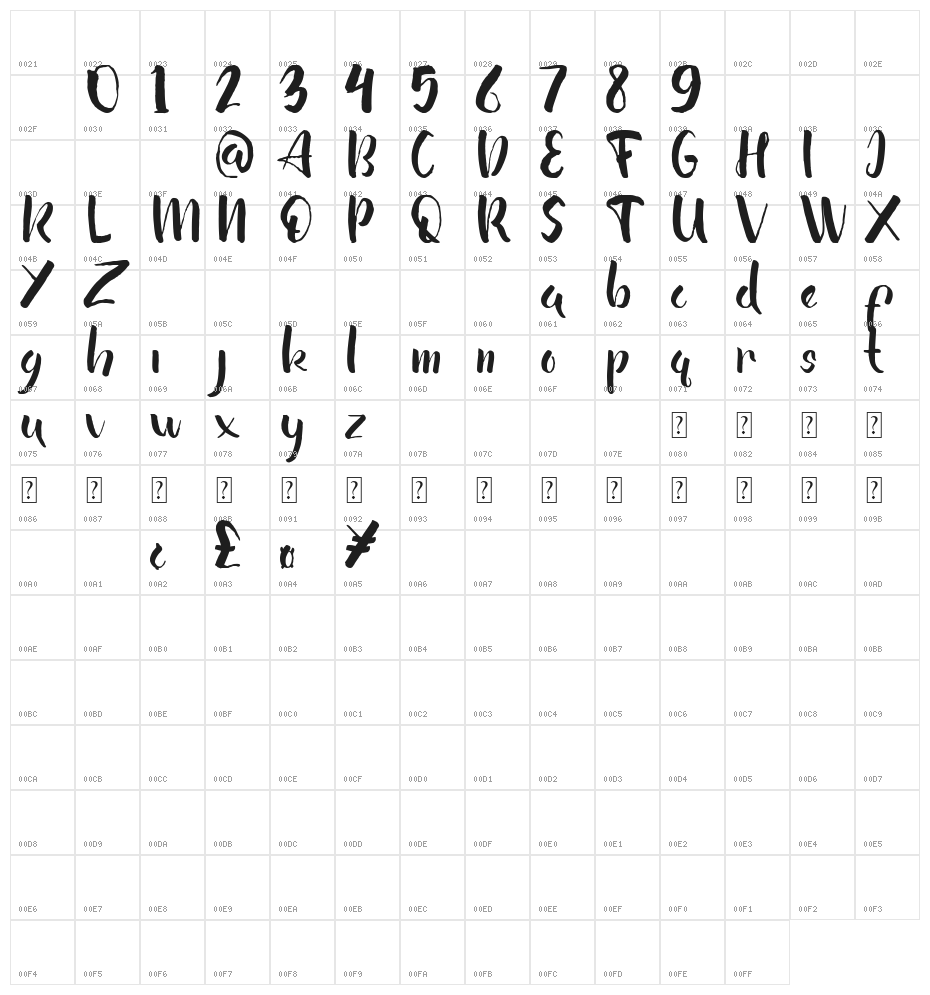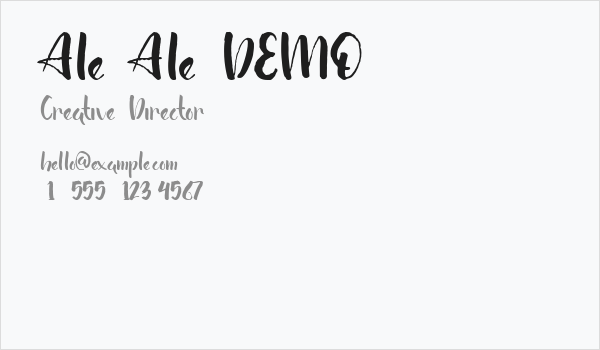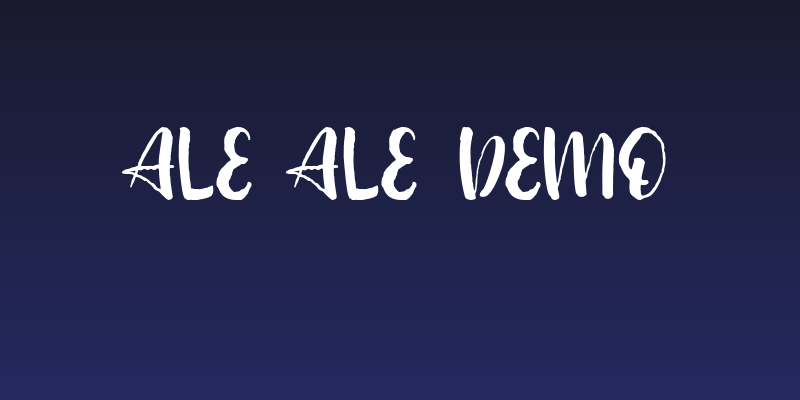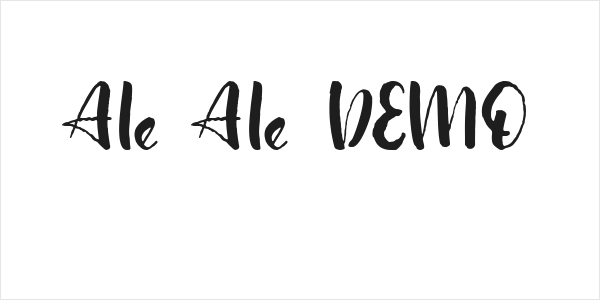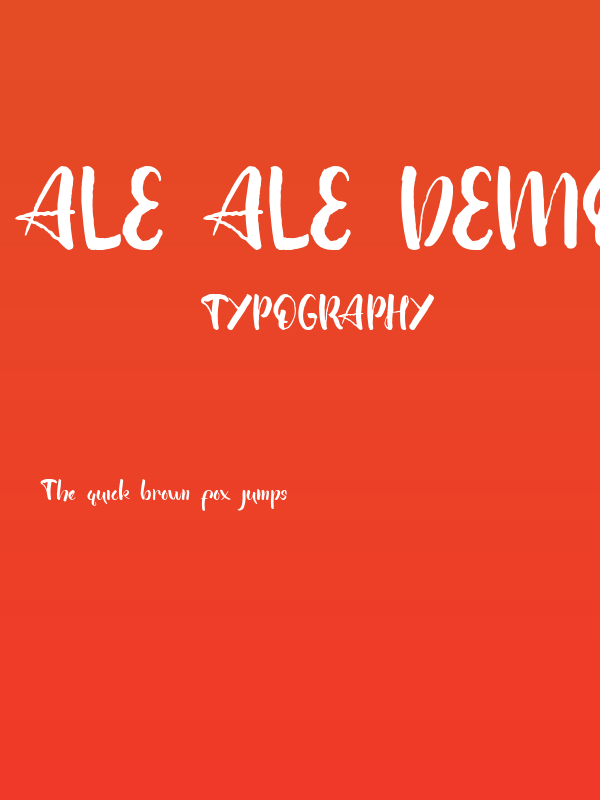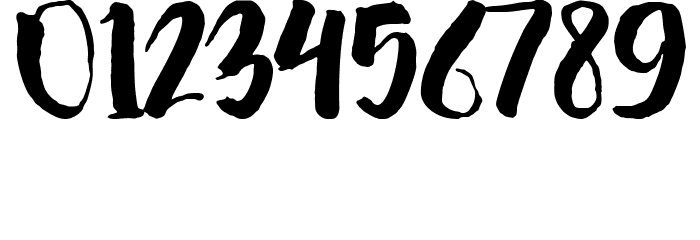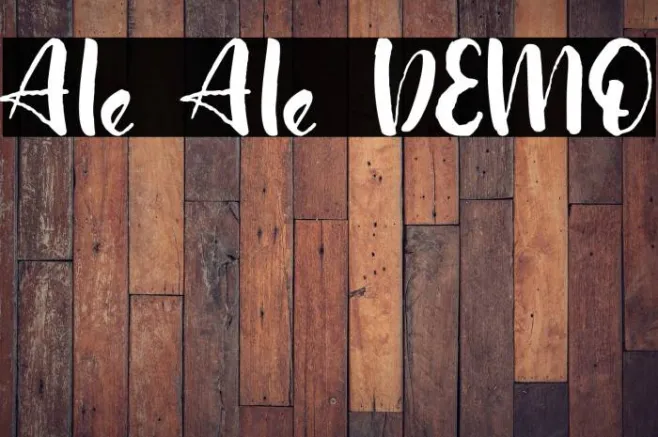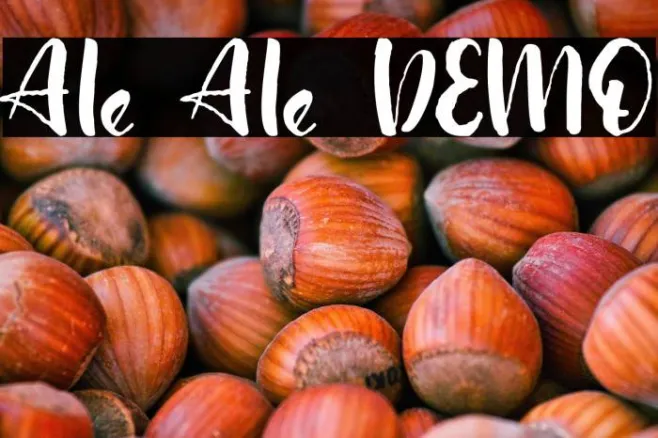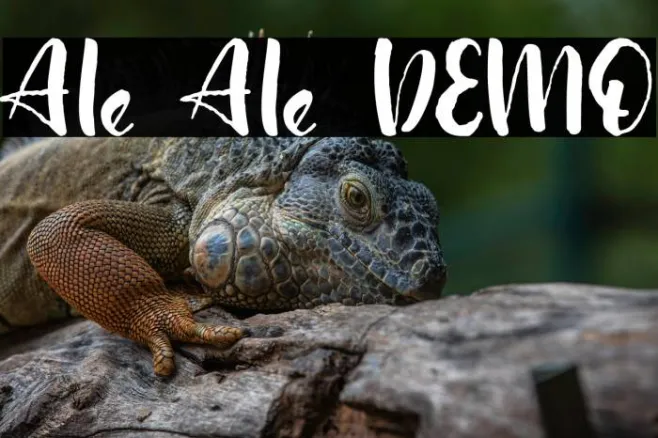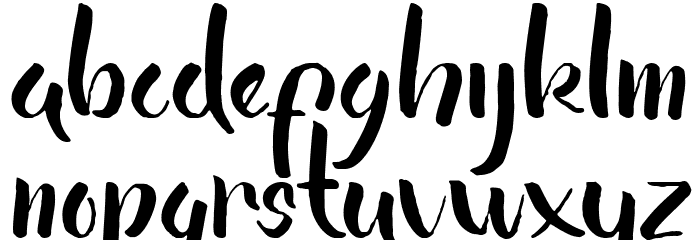
Ale Ale DEMO Font
Ale Ale DEMO Description
This font features a bold, expressive style with a hand-painted appearance. The strokes are thick and dynamic, giving it a lively and energetic feel. Each character is unique, with varying stroke widths that add a sense of movement and creativity. The uppercase letters are particularly striking, with some characters featuring dramatic flourishes and curves. The lowercase letters maintain the same energetic style, with a slightly more compact form. Numbers are bold and consistent with the overall aesthetic, making them stand out. This font is perfect for projects that require a touch of artistic flair and personality.
| Proposed Projects | Ideal for posters, branding, packaging, and creative projects that need a bold, artistic touch. |